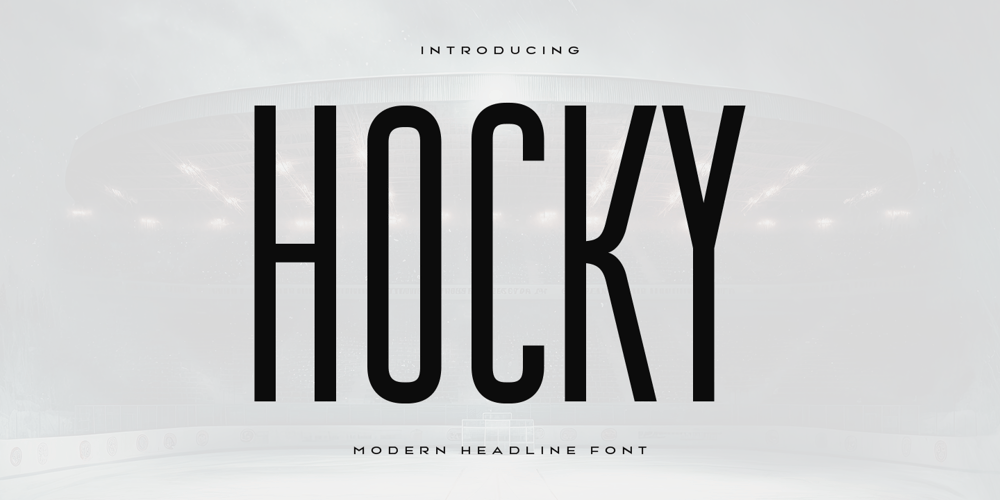
Hocky Font Family was designed by Zamroni Hamzah and published by Sensatype Studio. Hocky contains 1 styles and family package options. Hocky is an Ultra Condensed Headline Sans Serif Font that perfect for headline, Title, Instagram post, etc.A new San Serif Font that we created special for Headline, Title and more stand out typography needs, with extra ligature that will add your variations. It’s so perfect to add your style and headline overview. And specially for Headline font, we crafted for unique style and modern feels so enjoy to create any project that will show your main idea out.Hocky Ultra Condensed Headline Sans Serif Font ready with: Any options to get creative variations (combination of Ligature Characters) Preview as a inspirations that you can do with Hocky font Ready with All characters Wish you enjoy our font. ๐